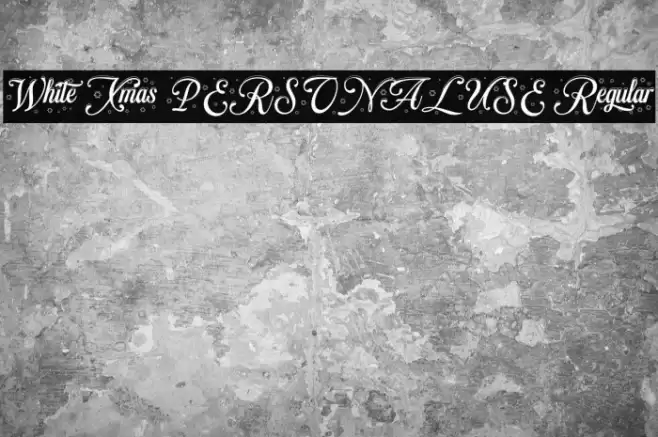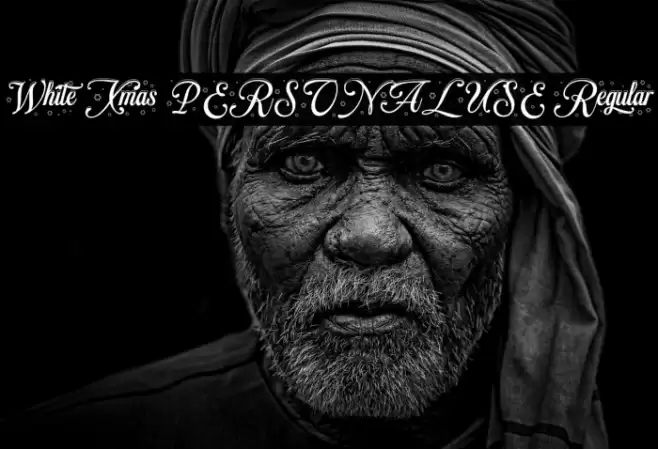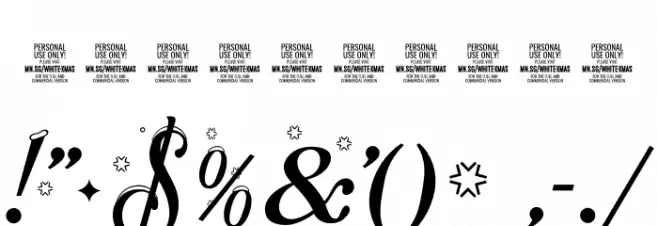
White Xmas PERSONAL USE Regular Font
White Xmas PERSONAL USE Regular Description
This font features a whimsical and festive design, incorporating playful elements like stars and snowflakes within the characters. The uppercase letters are adorned with decorative accents, giving them a lively and celebratory appearance. The lowercase letters maintain a consistent style, with smooth curves and a bold presence. The numbers and special characters are equally embellished, making them suitable for holiday-themed projects. The overall design is dynamic and eye-catching, perfect for capturing the spirit of festive occasions.
A festive, decorative font with playful star and snowflake accents from Regular fonts.